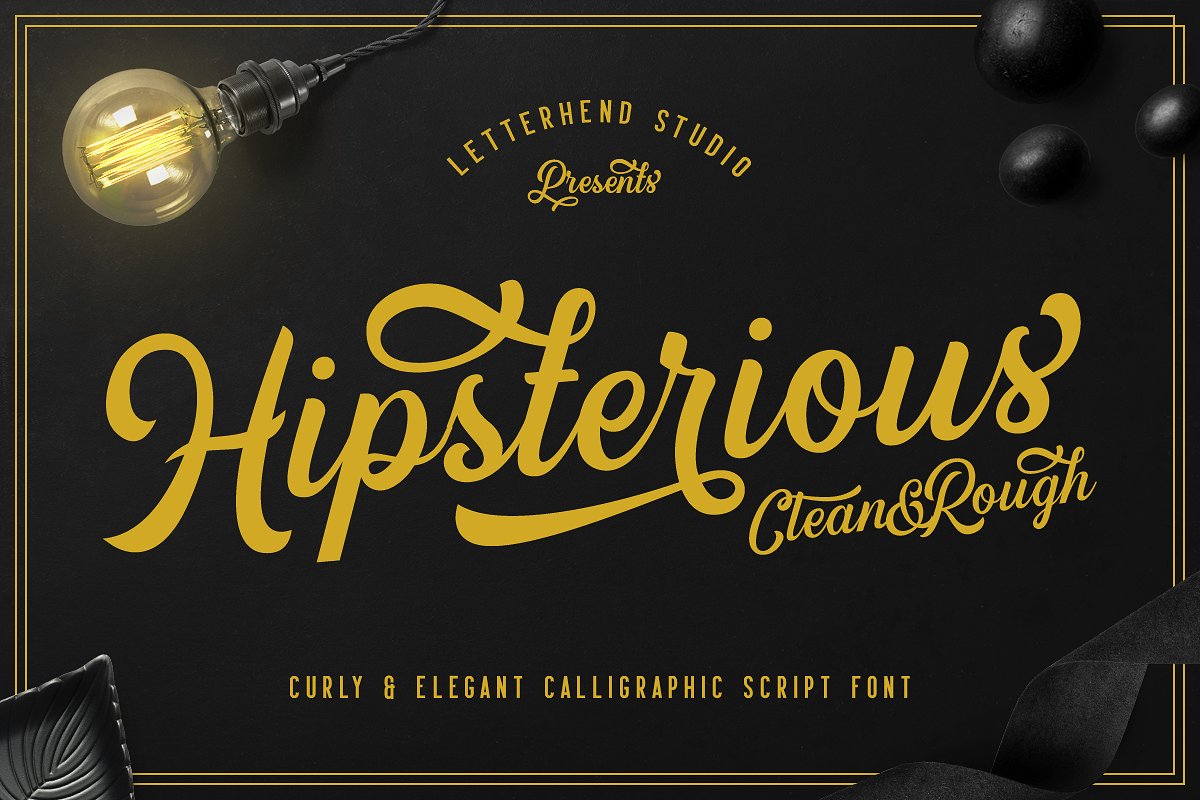
Hipsterious Font
Perfect for logos, branding, posters, packaging, and hip, trendy designs.
The Hipsterious Font excites designers with its vintage-inspired, handcrafted look that perfectly captures the cool, laid-back vibe of modern hipster culture.
Font families: Hipsterious Regular, Hipsterious Rough, Hipsterious Bold.
The Hipsterious Font Free Download is a versatile display typeface featuring textured strokes and retro flair, ideal for coffee shop branding, apparel design, and creative poster art.
One of the key strengths of Hipsterious Font is its ability to blend nostalgia with contemporary style, making your designs feel authentic, approachable, and stylish.
In branding, Hipsterious communicates creativity, uniqueness, and a handcrafted spirit. It pairs beautifully with rustic textures, muted color palettes, and vintage-inspired layouts to create memorable visuals.
For digital projects, this font enhances website headers, social media graphics, and promotional materials, delivering a fresh and trendy look that resonates with a youthful audience.